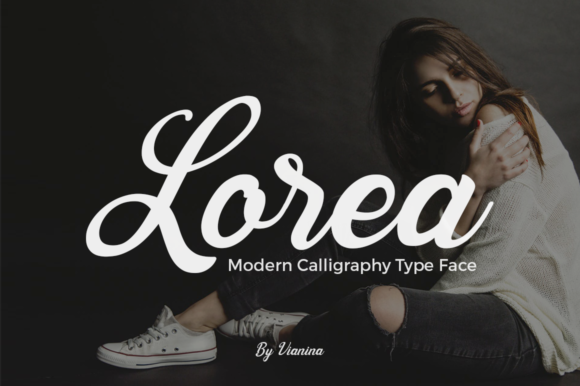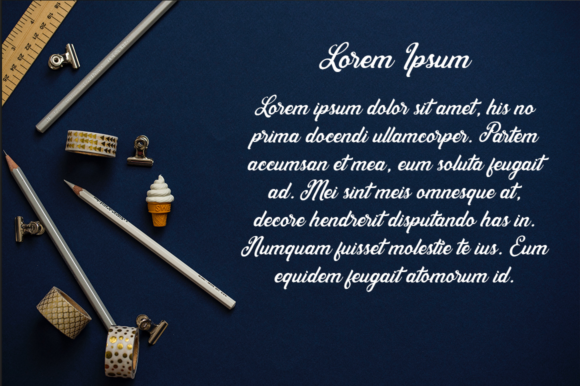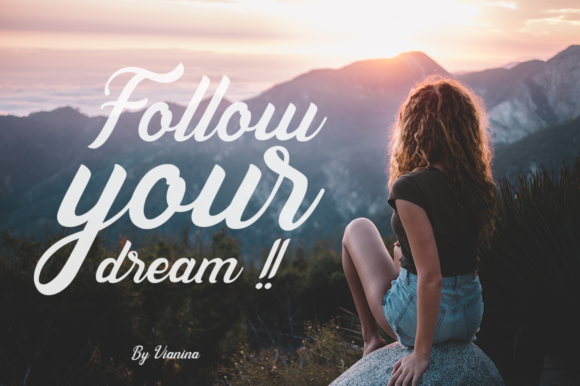
Lorea Script Font
Lorea is a modern calligraphy with a clean touch and a beautiful curve on each letter
Lorea is great for use on: wedding invitations, fashion magazines, logos, stationary, social media, and very suitable for watermark photography.